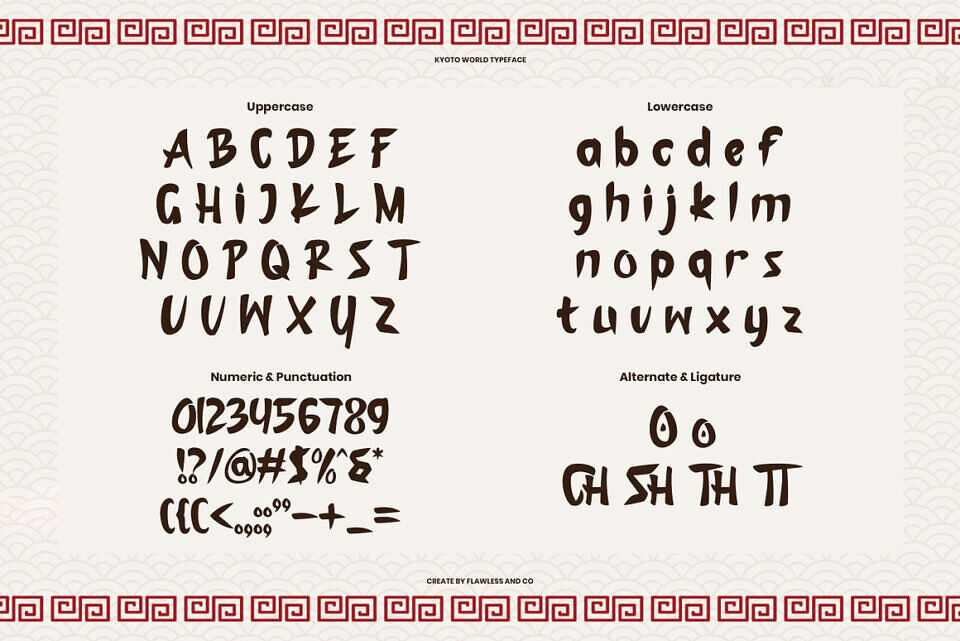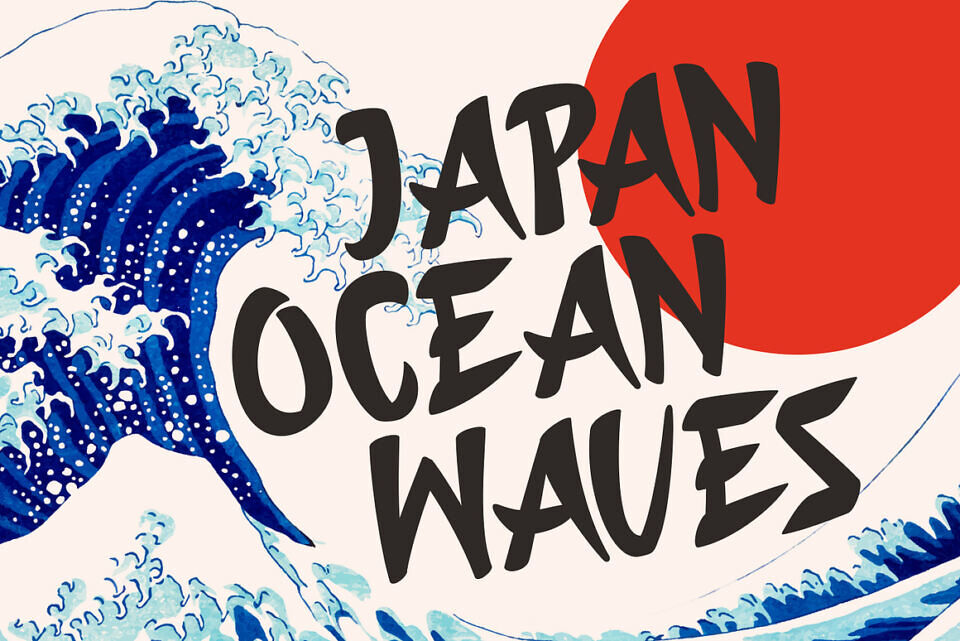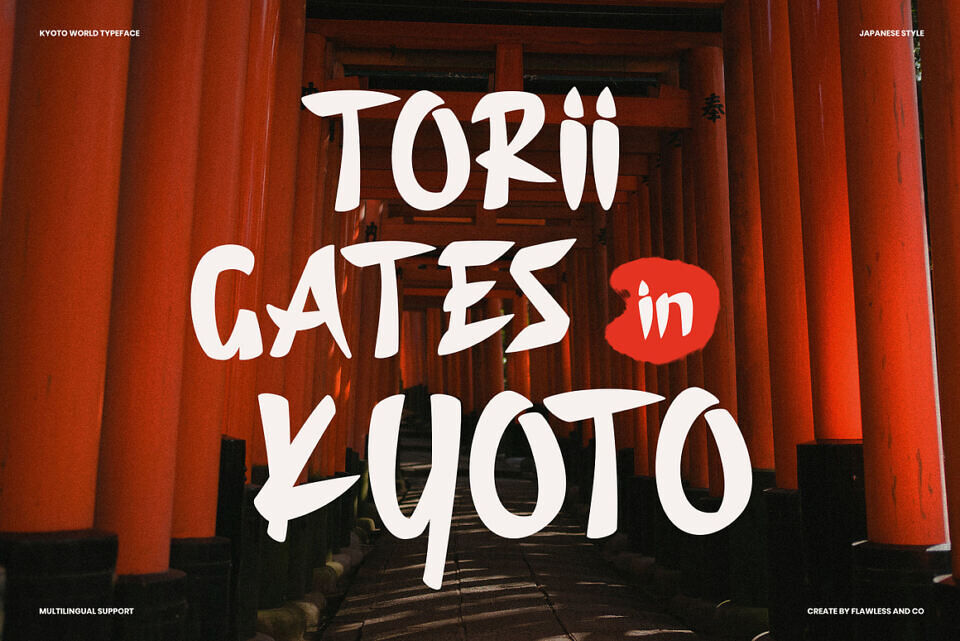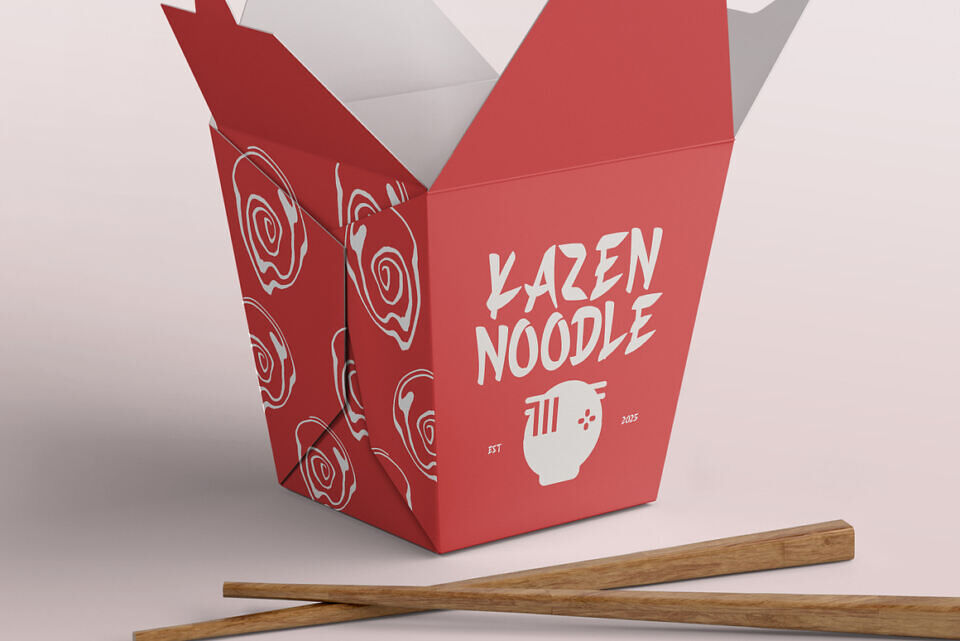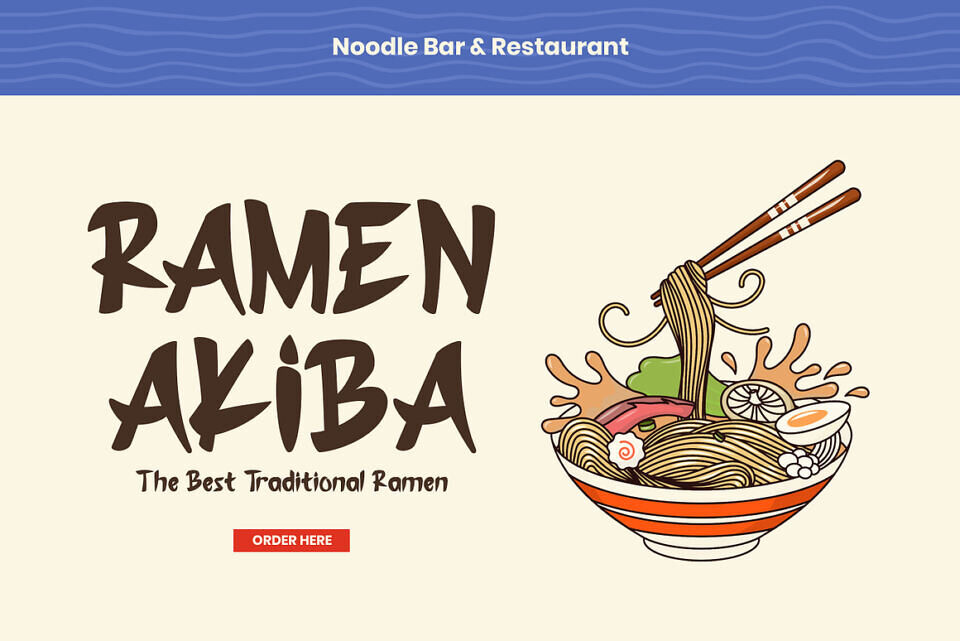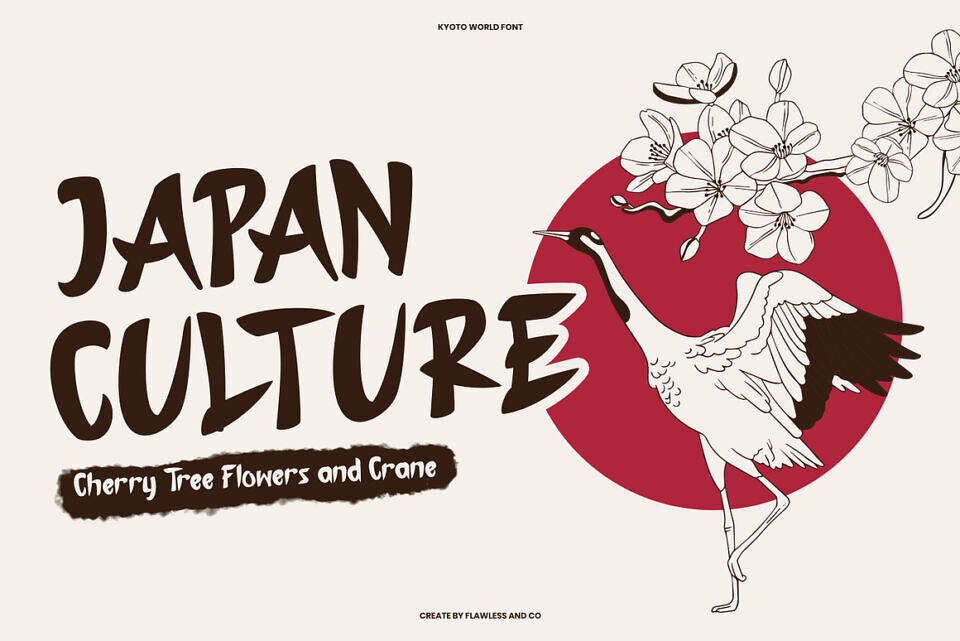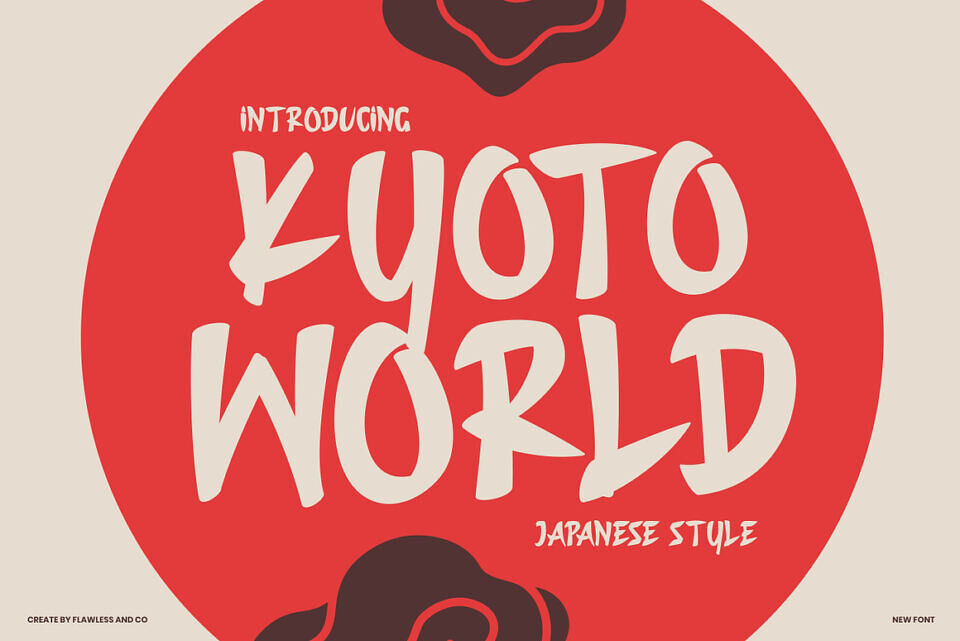
Kyoto World Font
KYOTO WORLD is a bold Japanese-style font inspired by the vibrant energy of Japan’s street signs, ramen shops, and cultural aesthetics. This typeface combines modern brush strokes with a playful, handcrafted spirit that brings life and motion to your words.
Perfect for branding, restaurant menus, packaging, merchandise, posters, and anything that craves a touch of East Asian flair, Kyoto World gives your designs that distinct, eye-catching charm. Each letter dances with character—like brush calligraphy made for the digital world!